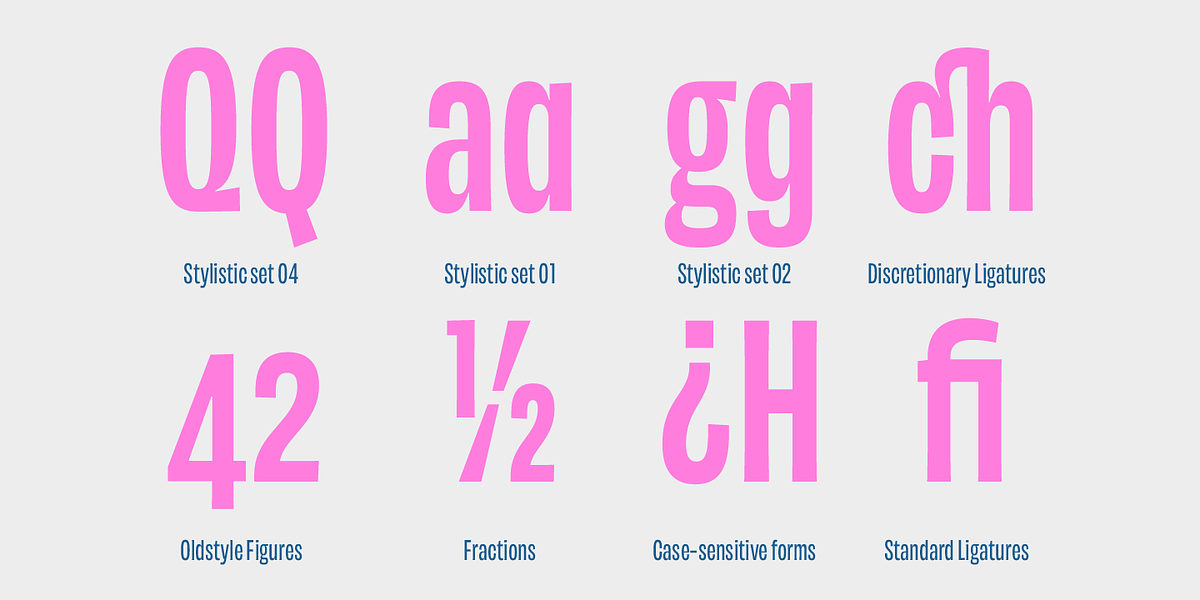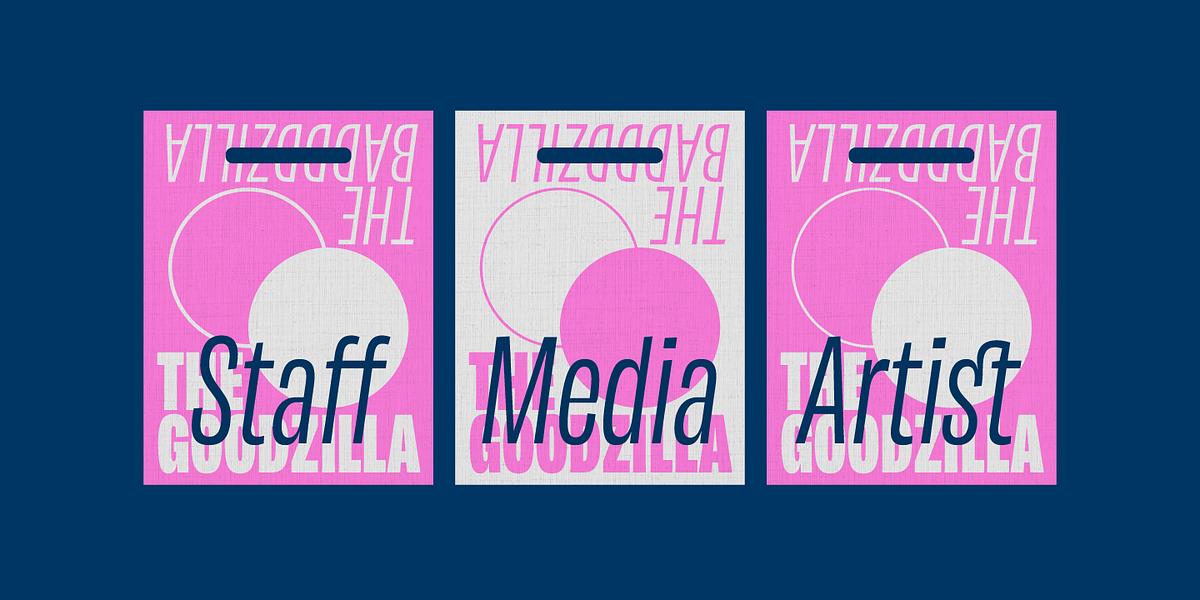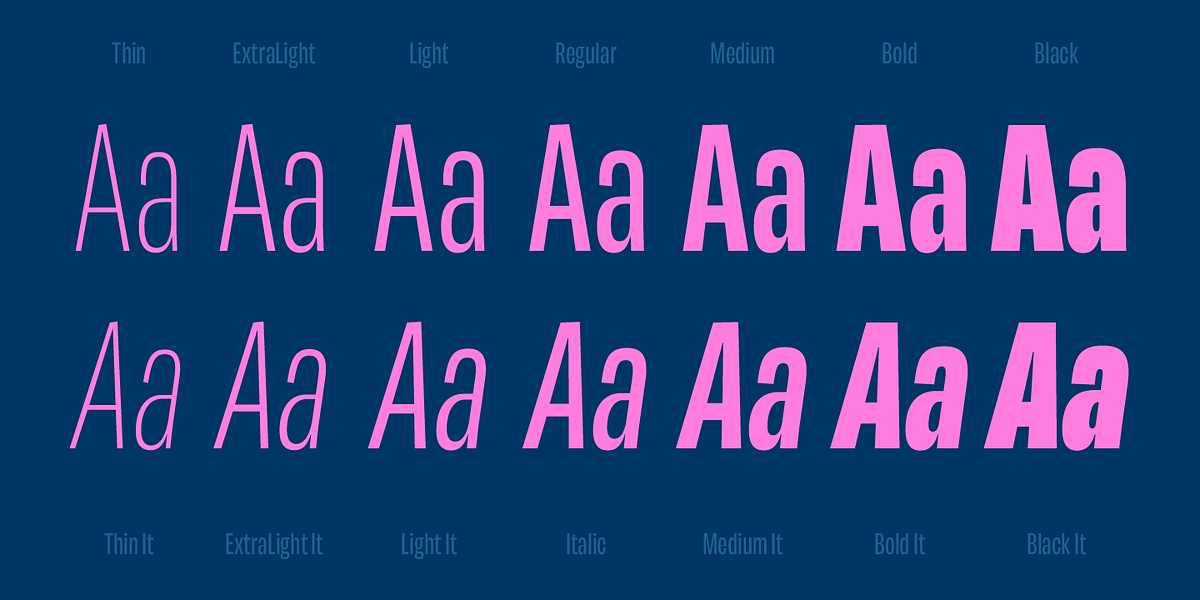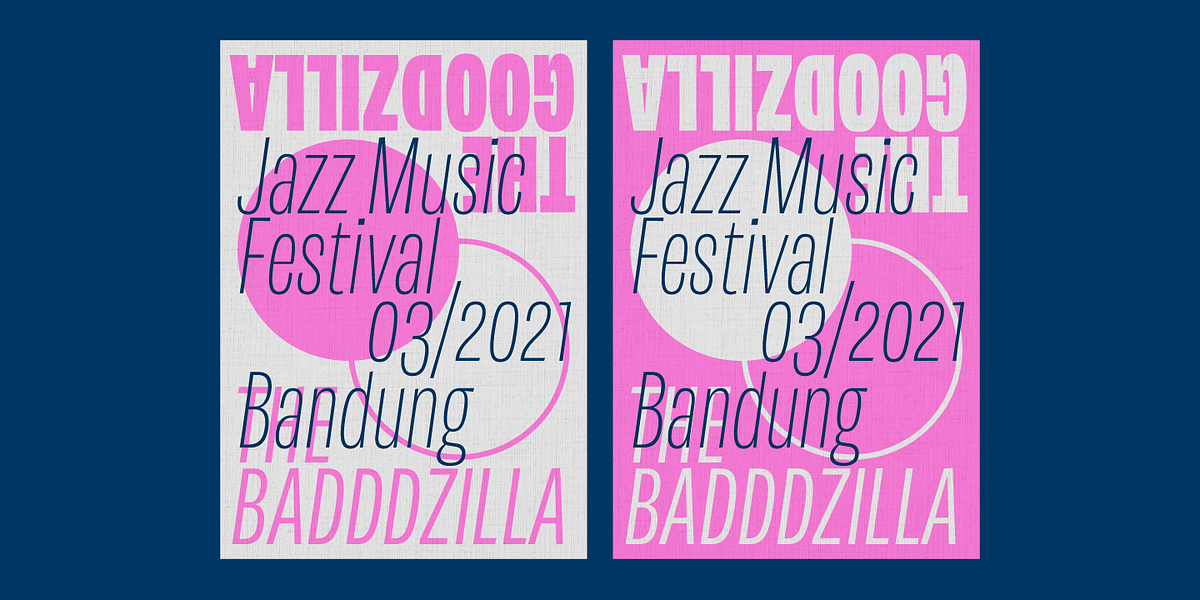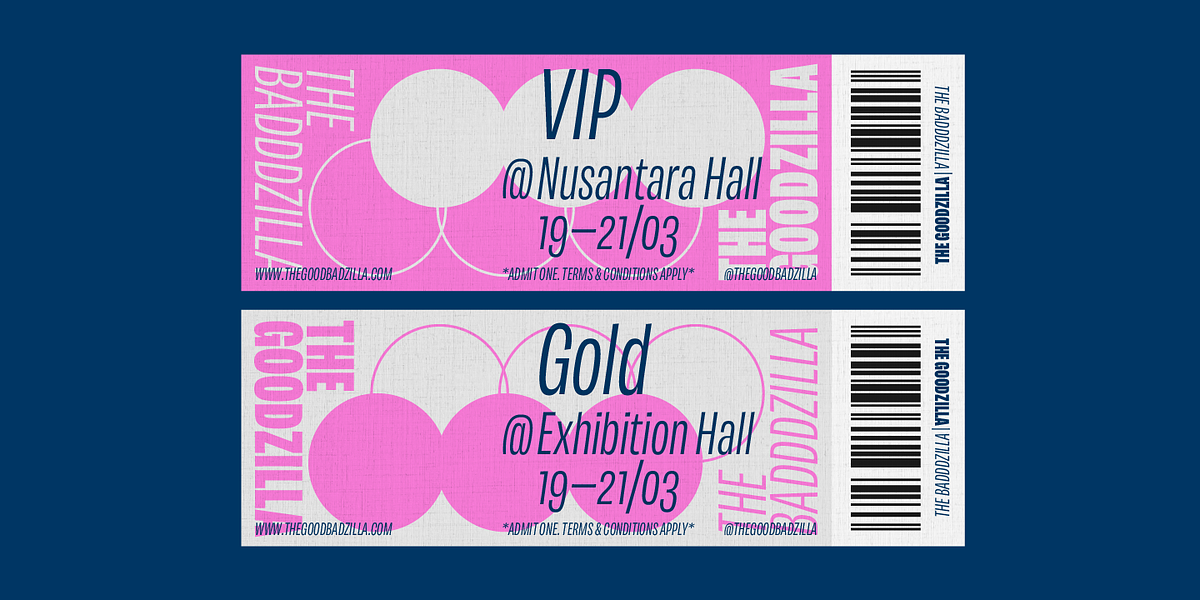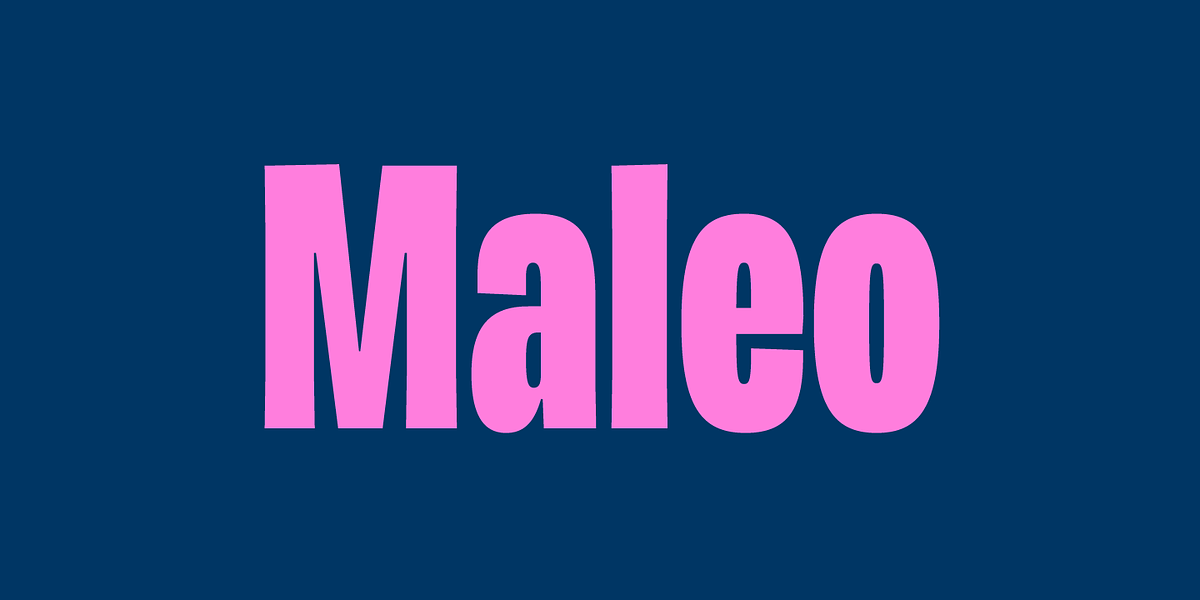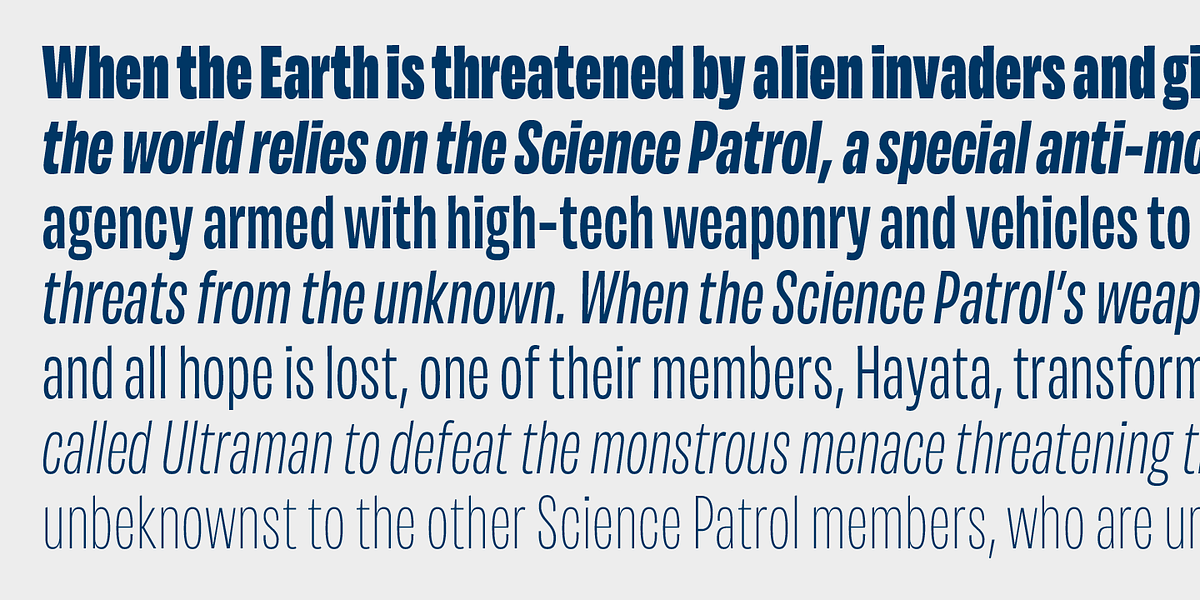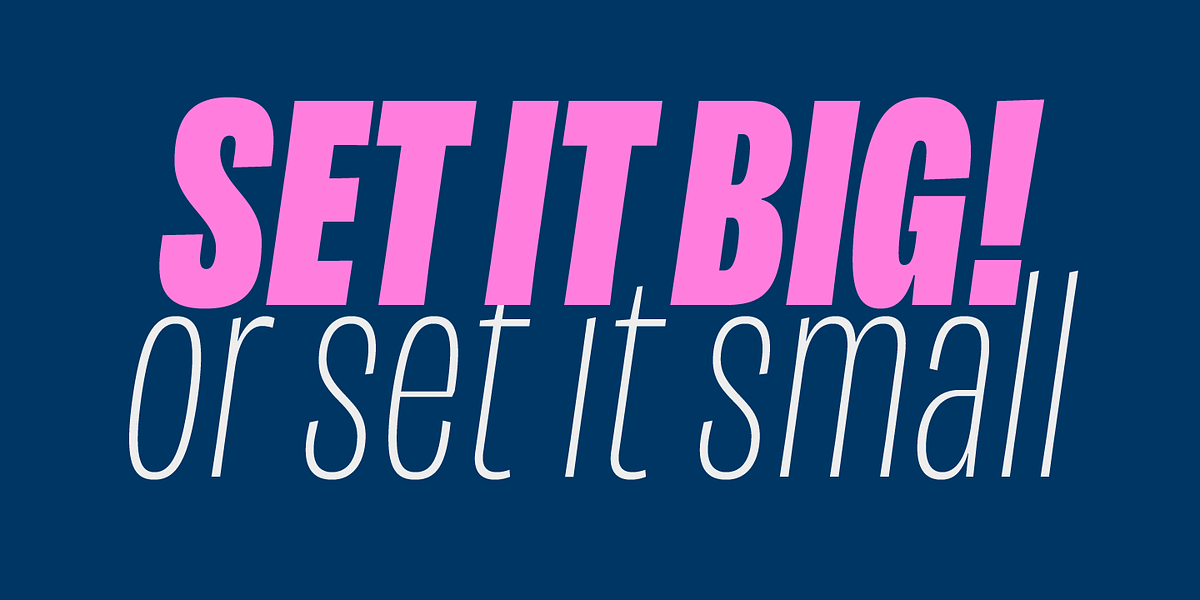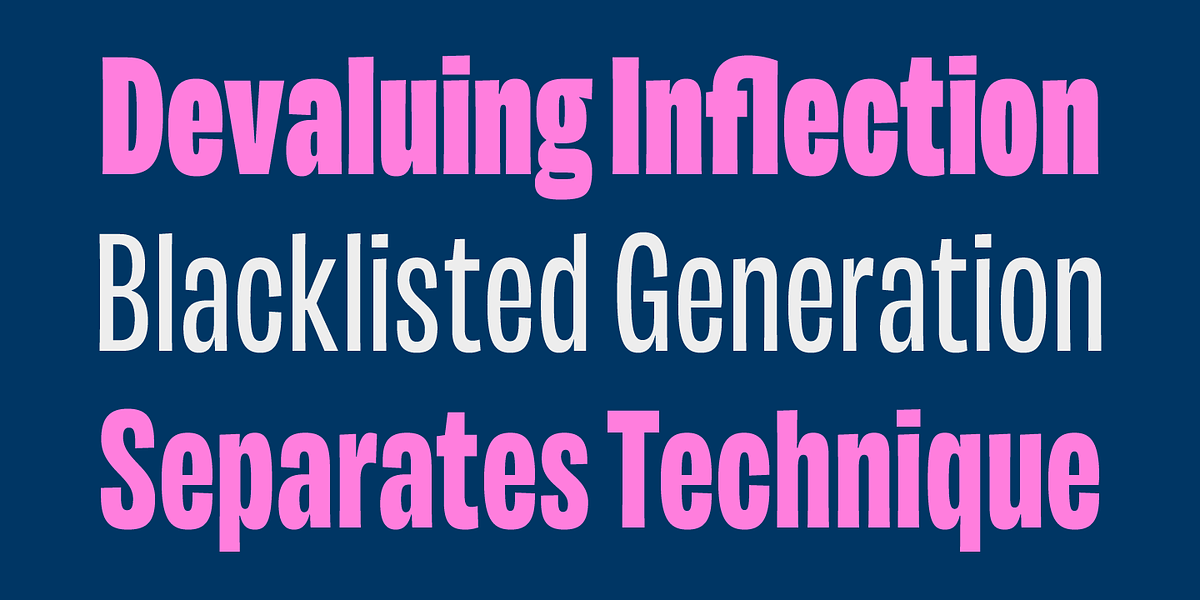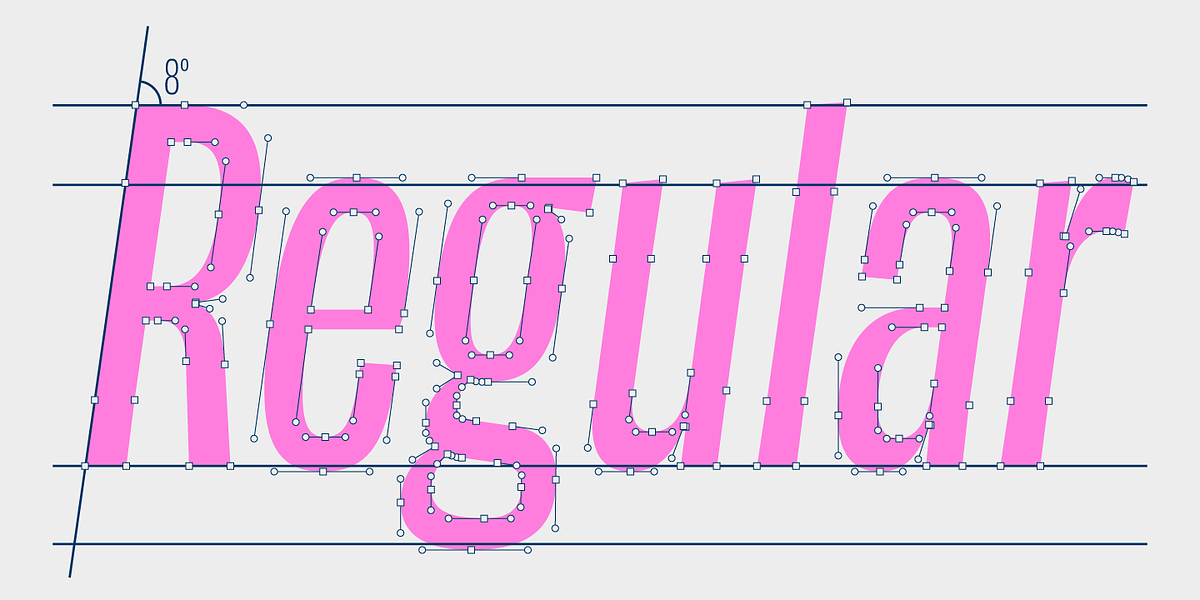
Maleo
Maleo is a contemporary display sans serif font designed by Aditya Wiraatmaja. It draws inspiration from classic grotesques like Benton's Franklin Gothic and Alternate Gothic, as well as modern typefaces such as Obviously and Mars Condensed. The typeface features a distinctive design with tiny flares and angled cut terminals, lending it a friendly and approachable aesthetic. Maleo comes in a family of 14 styles, ranging from thin to black, each with matching italics. Its versatility makes it suitable for various display applications, particularly headlines.